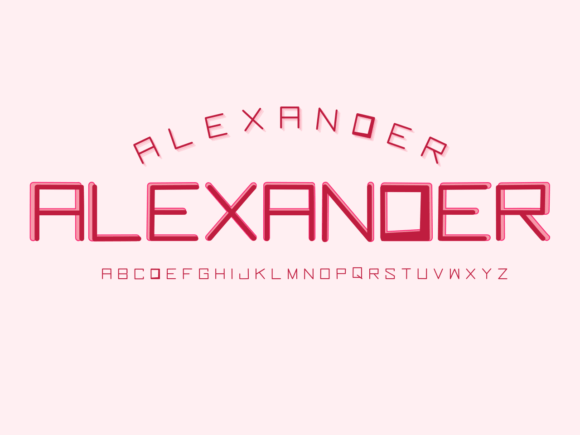
The Alexander Font: A Modern Sans Serif Delight
I’ll never forget the time I was working on a book cover design project, and my client asked me to create a modern and clean look. I spent hours scouring the internet for the perfect font, but nothing seemed quite right. That was until I stumbled upon the Alexander font. With its cute and minimalist vibe, it was love at first sight! In this article, I’ll share my experience with the Alexander font, its features, and how to make the most of it in your designs.
A Personal Review: What I Love and What I Don’t
• ✅ Modern and clean sans serif design
• ✅ Highly versatile and adaptable to various design projects
• ✅ OpenType features, glyphs, and stylistic alternates for added creativity
• ✅ Easy to read and works well for both headings and body text
• ⚠️ Limited availability of language support (check before use)
• ⚠️ Some users may find the font too minimalist or plain
4. Experiment with OpenType features, such as stylistic alternates and glyphs, to add visual interest
The Story Behind Alexander: Designer Inspiration
Alexander was designed with the goal of creating a modern, clean sans serif font that would be both versatile and easy to read. The designer aimed to craft a font that would be suitable for a wide range of projects, from book covers to social media posts. With its minimalist vibe and cute personality, Alexander has quickly become a popular choice among designers and crafters.
Q: What type of projects is Alexander best suited for?
A: Alexander is a versatile font that can be used for various design projects, including book covers, magazines, social media posts, invitations, and more.
Q: Does Alexander support OpenType features?
A: Yes, Alexander supports OpenType features, including glyphs and stylistic alternates, which can add creativity and visual interest to your designs.
Q: Is Alexander suitable for body text?
A: Yes, Alexander is easy to read and works well for both headings and body text, making it a great choice for designs that require a lot of text.